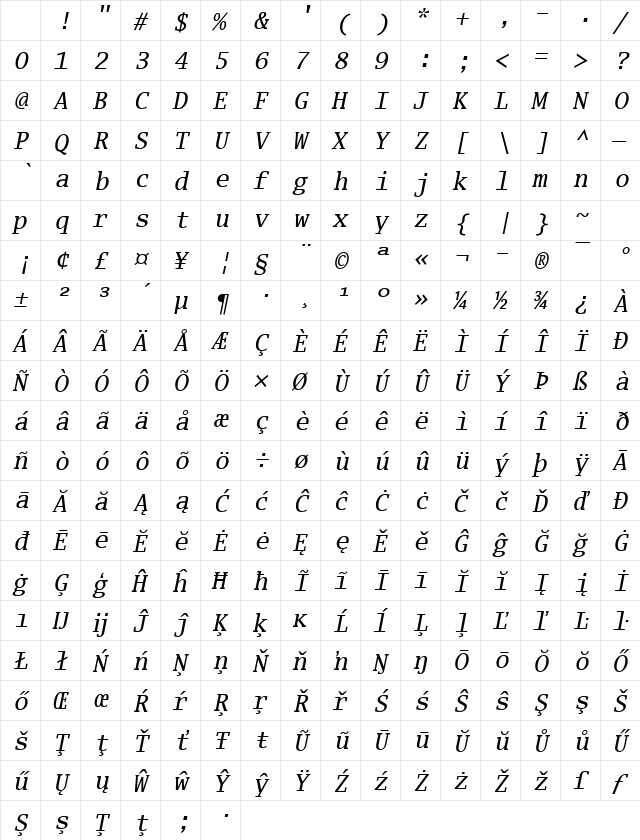
Complete Luxi Mono Oblique glyph index. Displaying only characters natively supported by Luxi Mono Oblique font.
Luxi Mono uses fixed-width spacing throughout, giving it the structured, systematic character associated with coding environments and technical documentation. The slanted form adds forward momentum and visual energy.